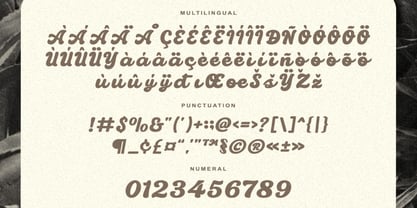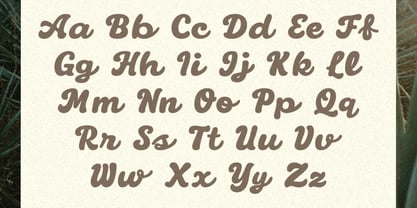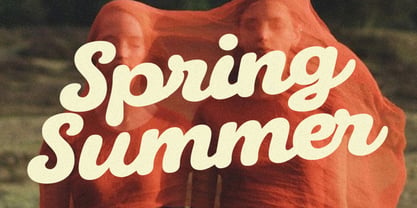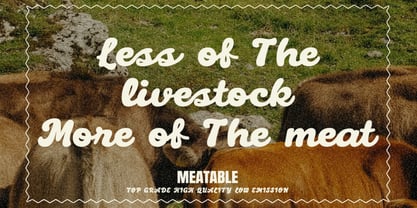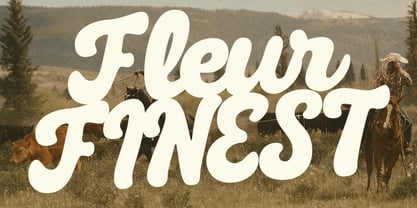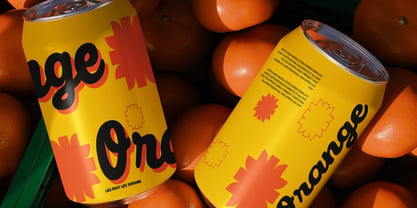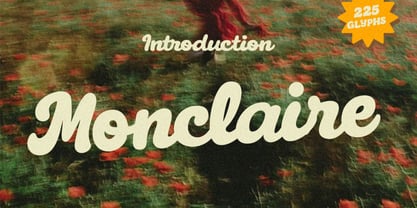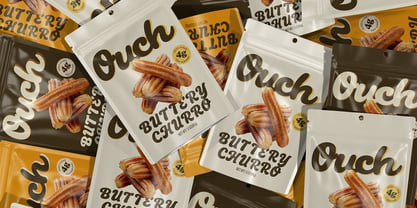
Monclaire
von Rasio Studio
Die Schriftfamilie Monclaire wurde von Fajar Indra entworfen und von Rasio Studio veröffentlicht. Monclaire enthält 1 Stile. Mehr über diese Familie
Monclaire is a bold and nostalgic display script font inspired by vintage signage, retro branding, and handcrafted typography. Featuring 225 unique glyphs with full uppercase and lowercase letters, Monclaire is designed to bring warmth, character, and a handcrafted touch to any project. Its bold, rounded strokes and flowing cursive form make it perfect for impactful headlines, retro-inspired logos, rustic packaging, and editorial titles. Monclaire is especially relevant for designers seeking a vintage, handcrafted look with a modern digital format. Its retro flair and nostalgic energy make it ideal for branding artisan goods, crafting retro-themed merchandise, or creating eye-catching social media content with a rustic twist.
Designer: Fajar Indra
Foundry: Rasio Studio